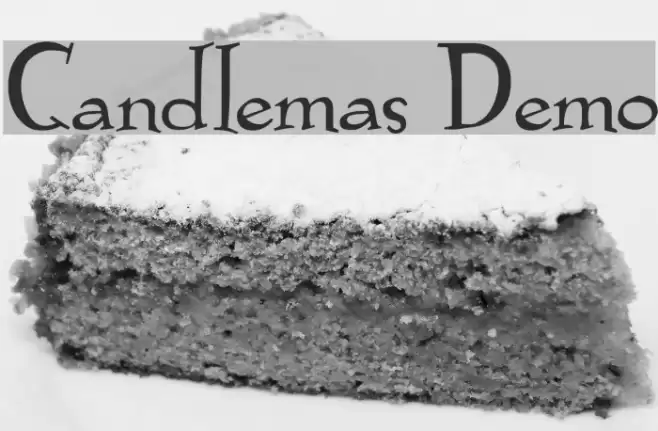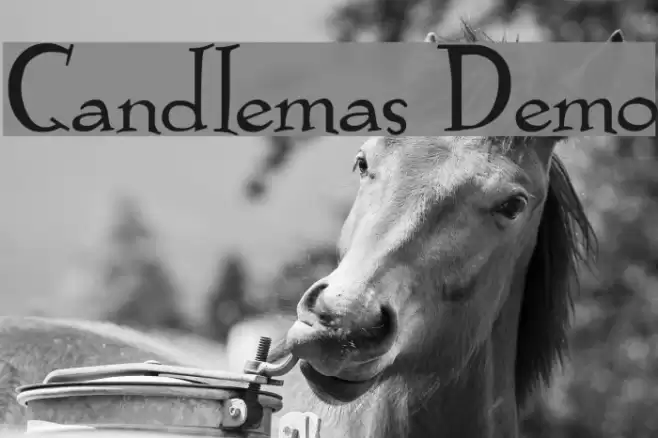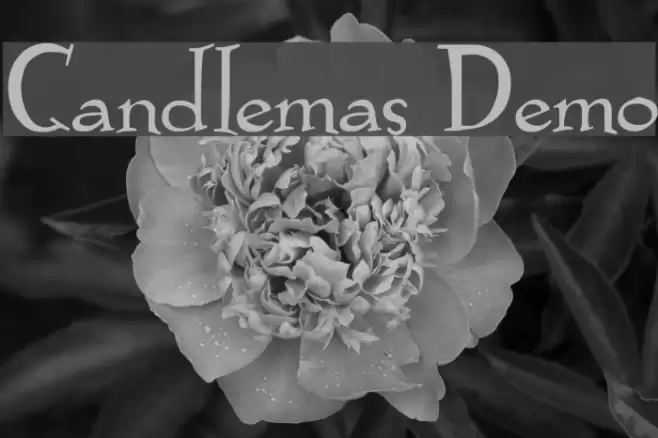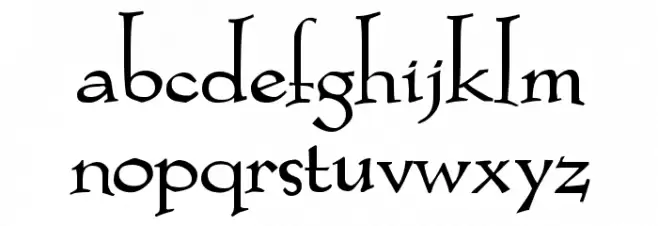
Candlemas Demo Font
| おすすめプロジェクト | Ideal for historical themed projects, book covers, invitations, and branding that requires a touch of elegance and tradition. |